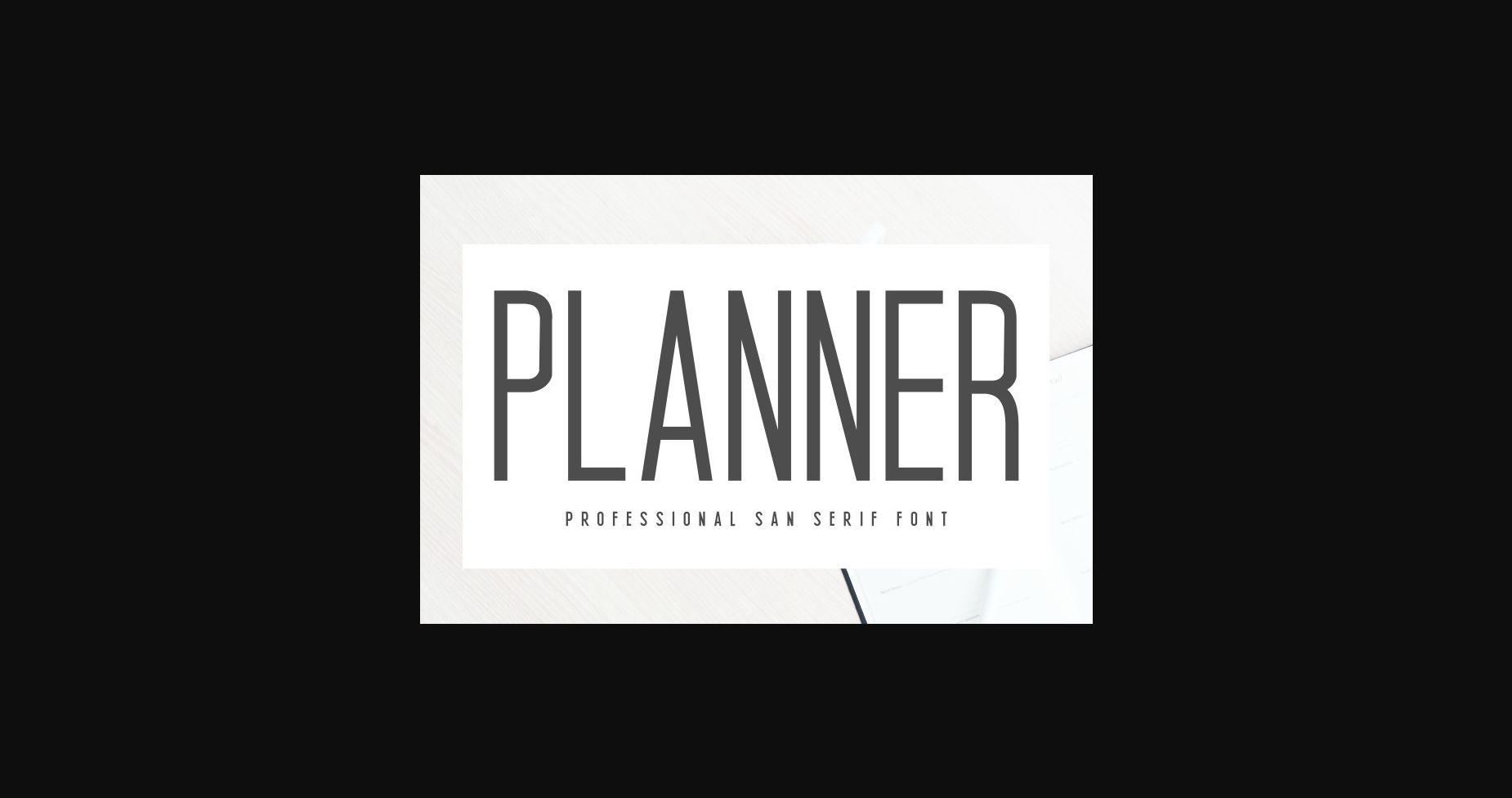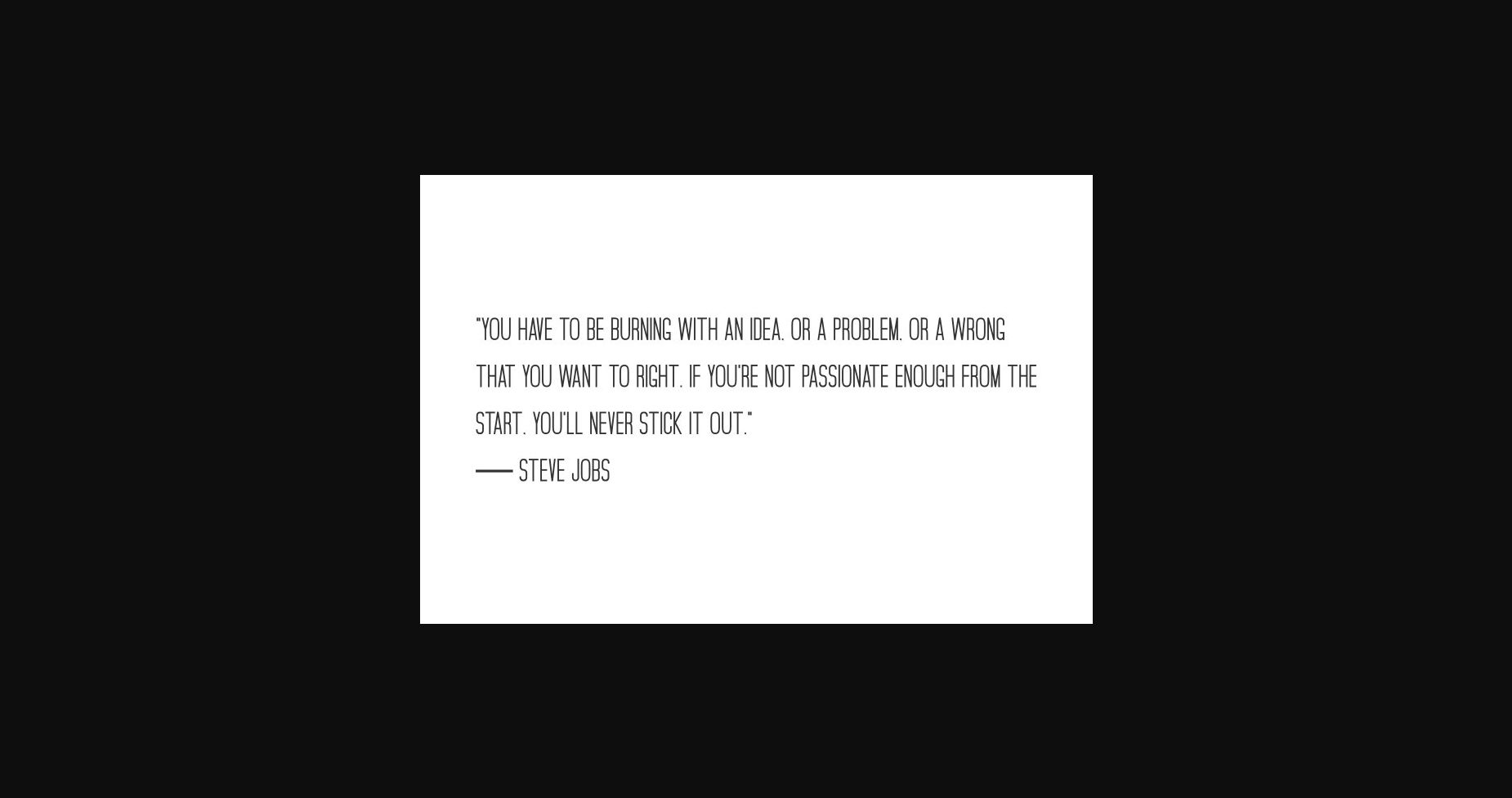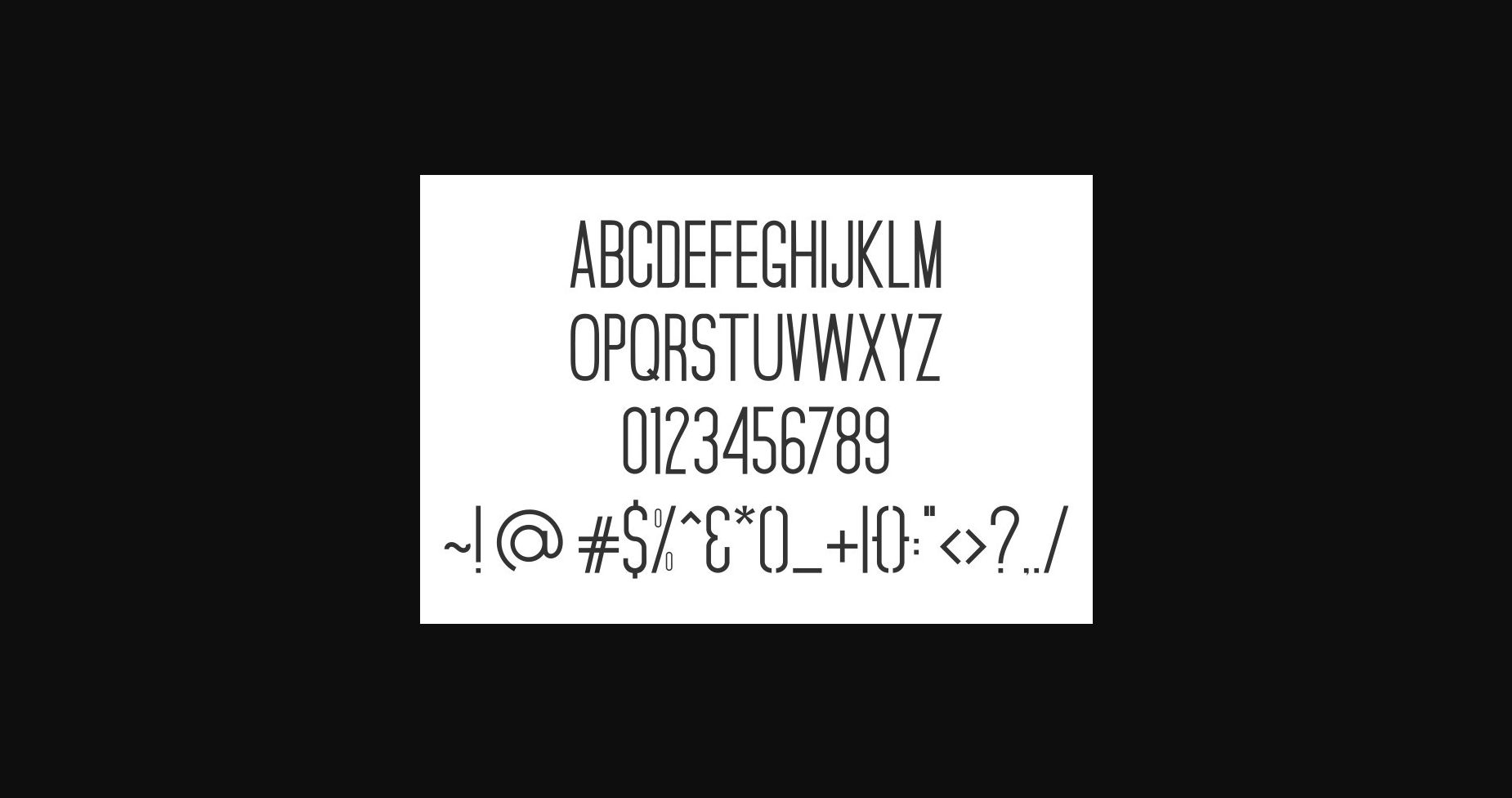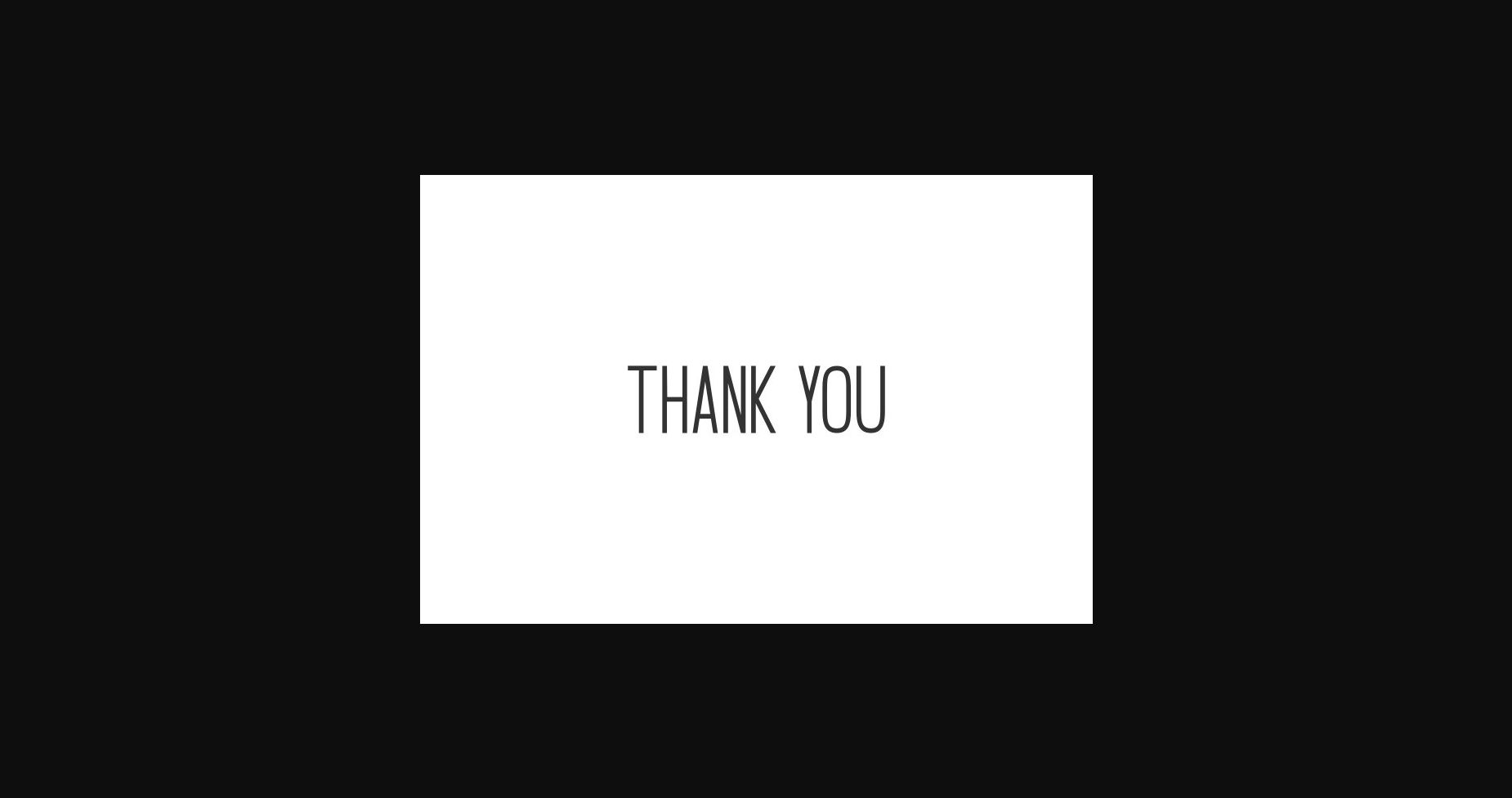
About Planner Font
Planner is a stunning sans serif to complement every project you’re working on.
Use it to create beautiful headings, gorgeous invitations, stunning logos, and so much more!! Perfect for displays, headers, invitations, save the dates, weddings, and so much more!